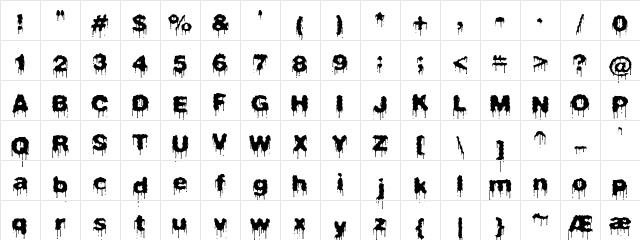
Plasma Drip BRK Regular Free Font
Plasma Drip BRK Regular
Complete Plasma Drip BRK Regular glyph index. Displaying only characters natively supported by Plasma Drip BRK Regular font.
Design Context for Plasma Drip BRK
Plasma Drip BRK is a composed and adaptable typeface that performs quietly and consistently across a wide range of design contexts.